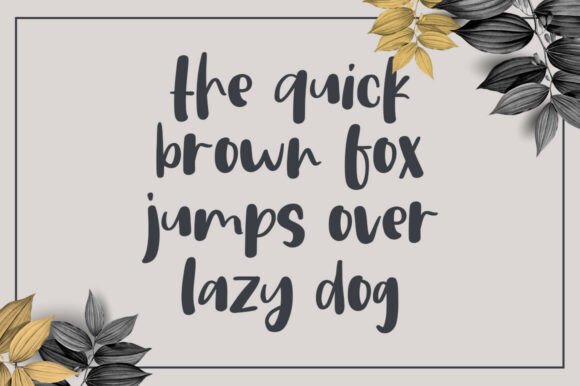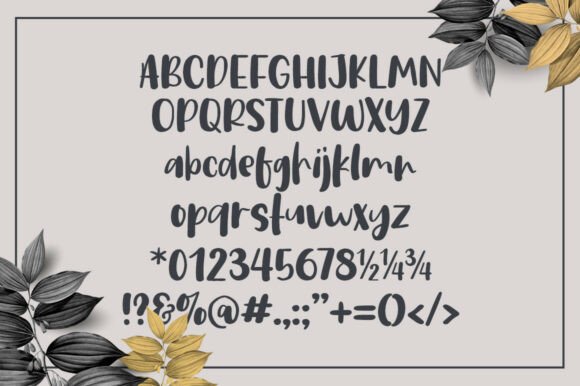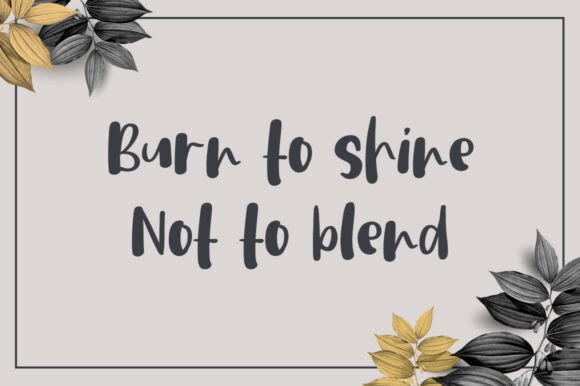
Indulge in the Whimsy of Brownies Font
Who can resist the charm of a freshly baked brownie, straight from the oven? As designers, we often find ourselves seeking the perfect typeface to evoke that same sense of warmth and coziness. This is where Brownies Font comes in – a delightful, hand-drawn typeface that captures the essence of a handwritten note or a child’s drawing.
Brownies Font is a versatile and playful typeface designed to add a personal touch to any project. Whether you’re crafting a bakery brand, designing packaging for handmade crafts, or creating whimsical social media content, this charming font is sure to bring a smile to your audience’s faces. Its soft, rounded letterforms and slightly irregular rhythm make it the perfect choice for designers seeking to add a human, approachable feel to their work.
Brownies Font Key Features
- Unique Characteristics: The Brownies Font features a distinctive, playful script design with a mix of cursive and handwritten elements, making it perfect for creating eye-catching titles and headings.
Brownies Font Review
I recently had the chance to dive into the world of Brownies Font, and here’s my honest take on it. ✨ One thing that stood out to me was the unique, playful vibe it brings to any design. The font’s rounded edges and soft curves make it perfect for creating a friendly, approachable atmosphere.
Another strength of Brownies Font is its versatility. ✨ It can be used in a variety of contexts, from food branding to children’s products, and still looks great. The font’s ease of use and readability make it a solid choice for any project.
However, I did notice a few limitations. ⚠️ The font’s lack of bold weights might make it less suitable for titles or headings that need to stand out. Additionally, some users might find the font’s rounded shape a bit too whimsical or childish for more serious projects.
Overall, I’d say Brownies Font is a great addition to any designer’s toolkit. It’s perfect for projects that need a touch of playfulness and whimsy. With its unique style and versatility, it’s definitely worth checking out.
- Unique, playful vibe
- Soft, rounded edges
- Highly versatile
- Easy to use and read
Brownies Font Practical Application Guide
Tips for Getting the Most Out of Brownies Font
Here are some tips for getting the most out of the Brownies Font:
- Use the font in combination with other design elements to create a cohesive look.
- Customize the font to match your brand’s style and tone.
The Brownies Font is ideal for use in:
- Food-related designs, such as recipes or
Alternatives to Brownies Font for Designers
Great Vibes Font is a modern script font ideal for creating a casual and friendly atmosphere. It is perfect for use in social media graphics, blog posts, and advertisements. Great Vibes Font offers a more relaxed feel compared to Brownies Font, which is more elegant and sophisticated.
Comparison: While Brownies Font is ideal for formal and professional designs, Great Vibes Font is better suited for informal and creative projects.